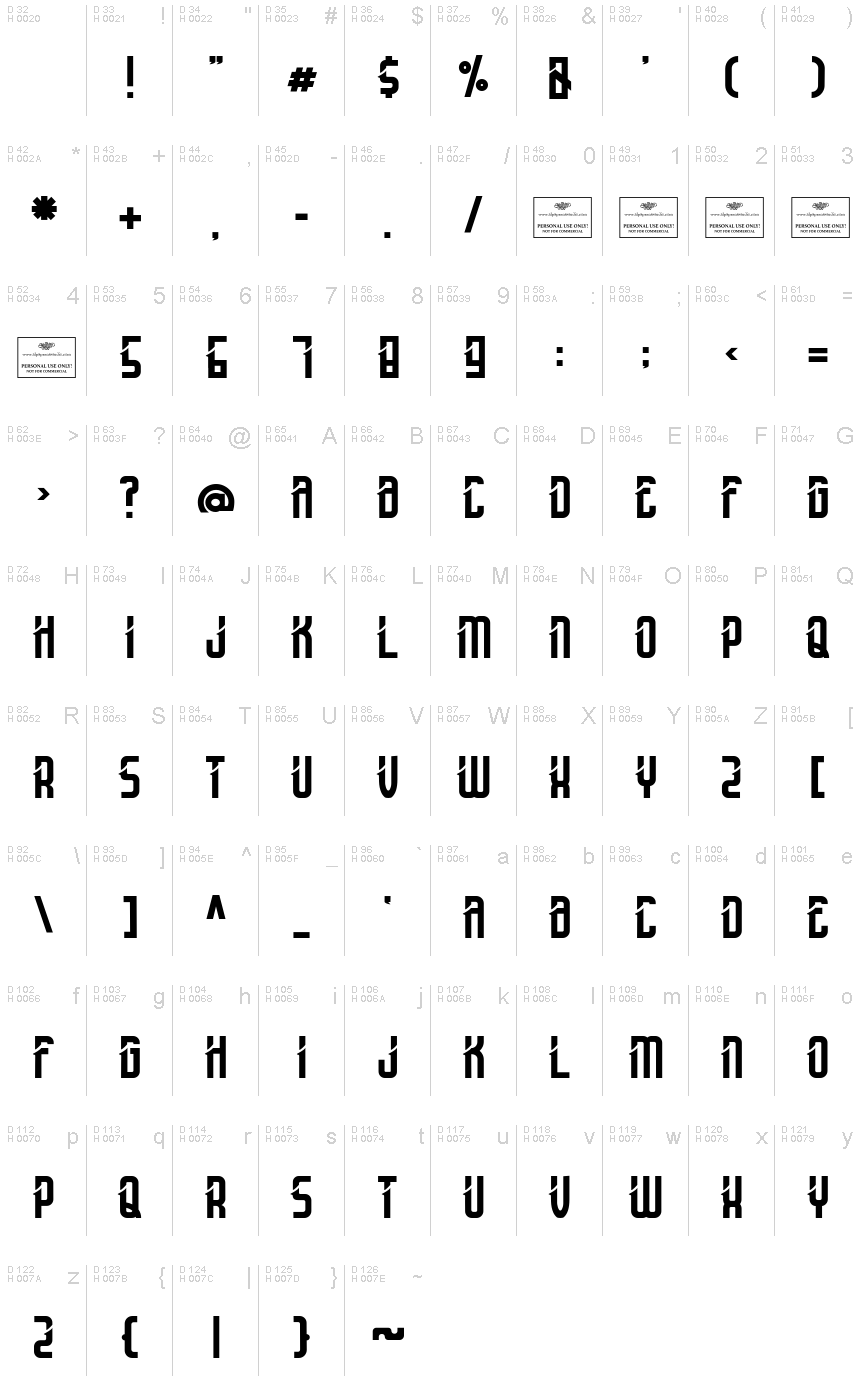
Olympia
Olympia font, designed by Alpaprana Studio, captures an engaging blend of modernity and charisma. Its distinct condensed form exudes a sense of sleek sophistication while maximizing visual impact in a variety of contexts. The bold lines and energetic curves create an inviting presence, making it ideal for headlines or brand identities that demand attention.
With its striking aesthetic appeal, Olympia effortlessly bridges elegance and assertiveness, suitable for everything from artistic posters to dynamic digital media. This display font is perfect for projects that seek to convey vibrancy and character, ensuring every message is delivered with confidence. Whether elevating a creative campaign or enhancing a stylish presentation, Olympia stands out as the go-to choice for impactful design.